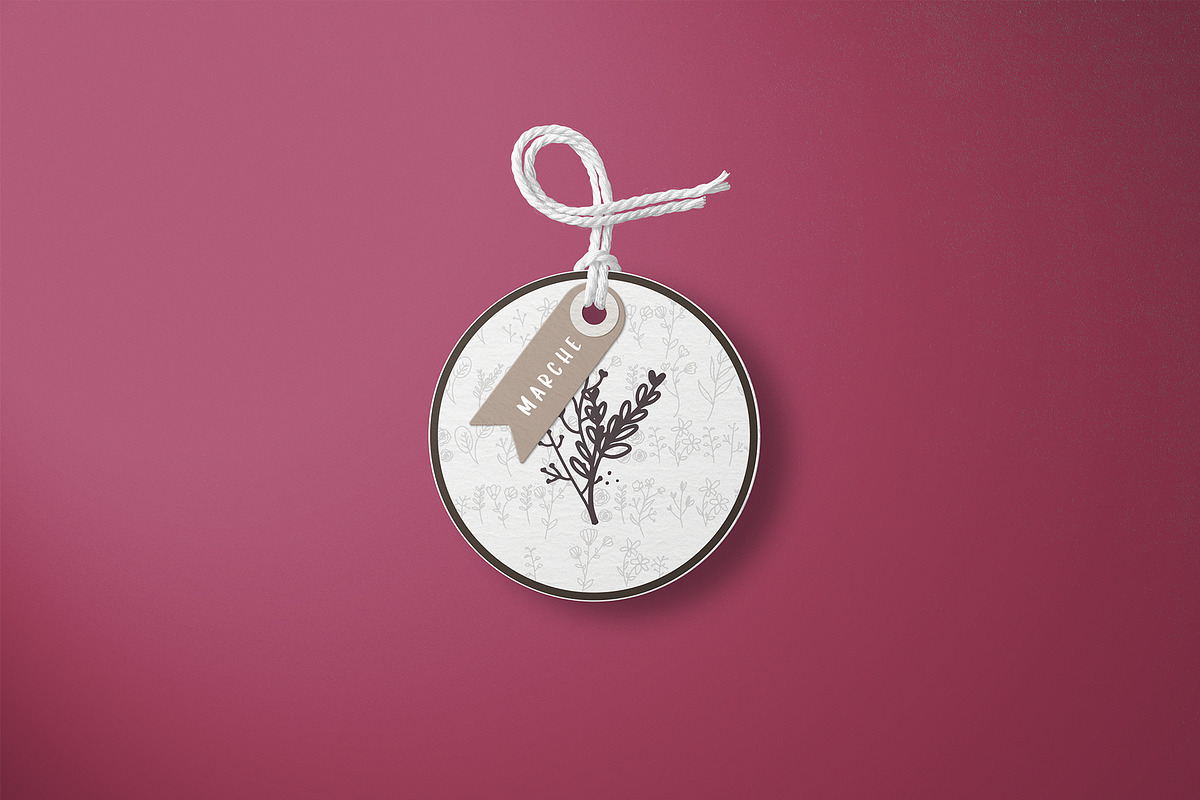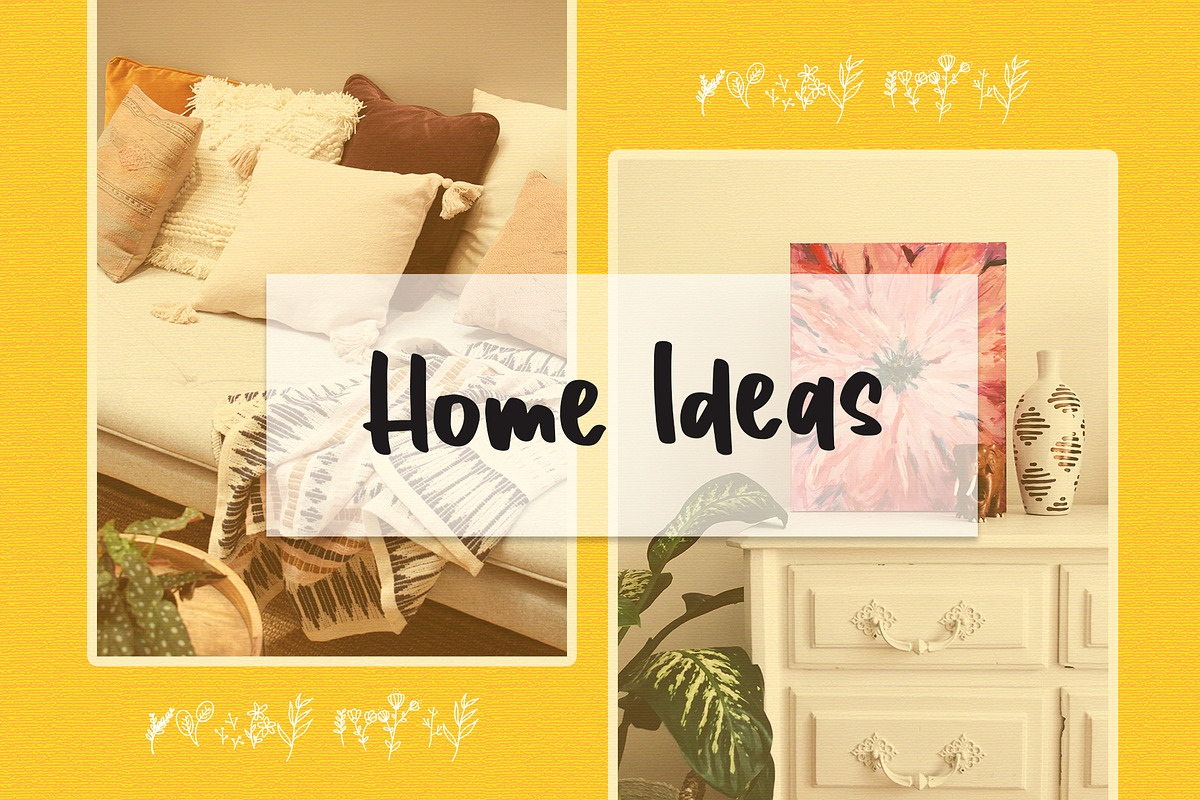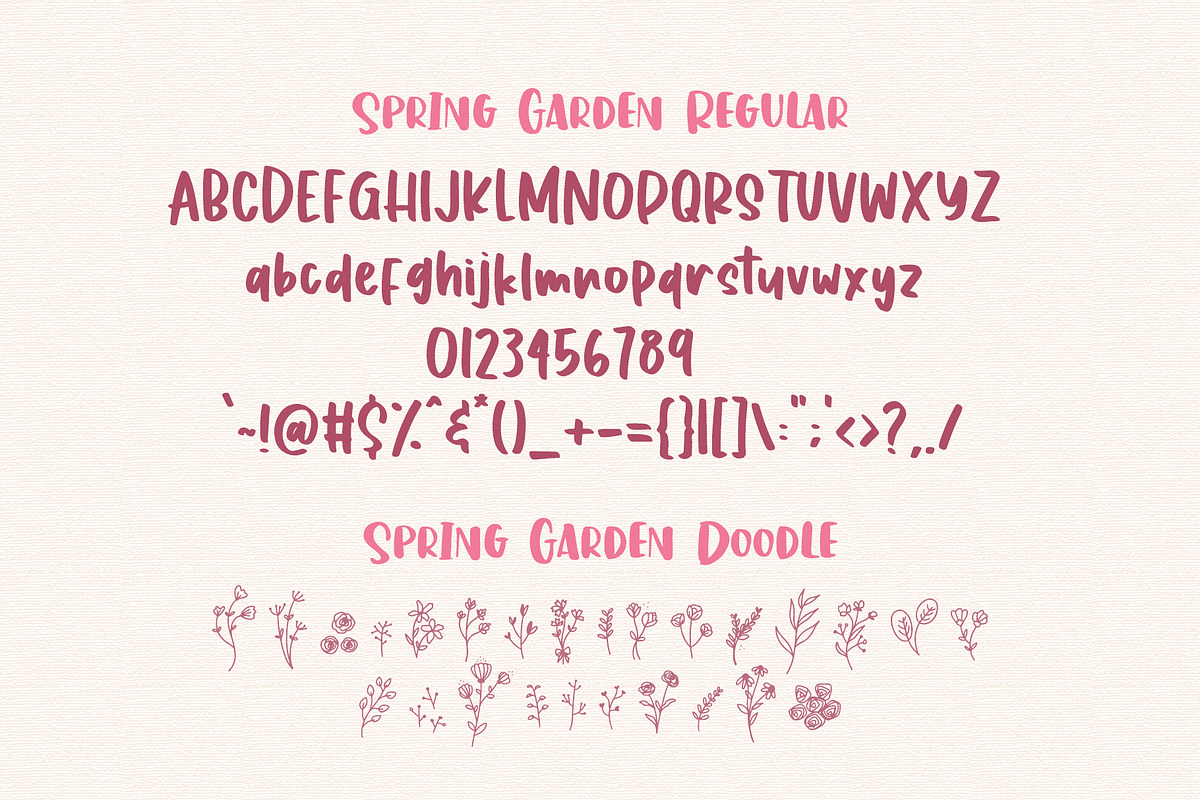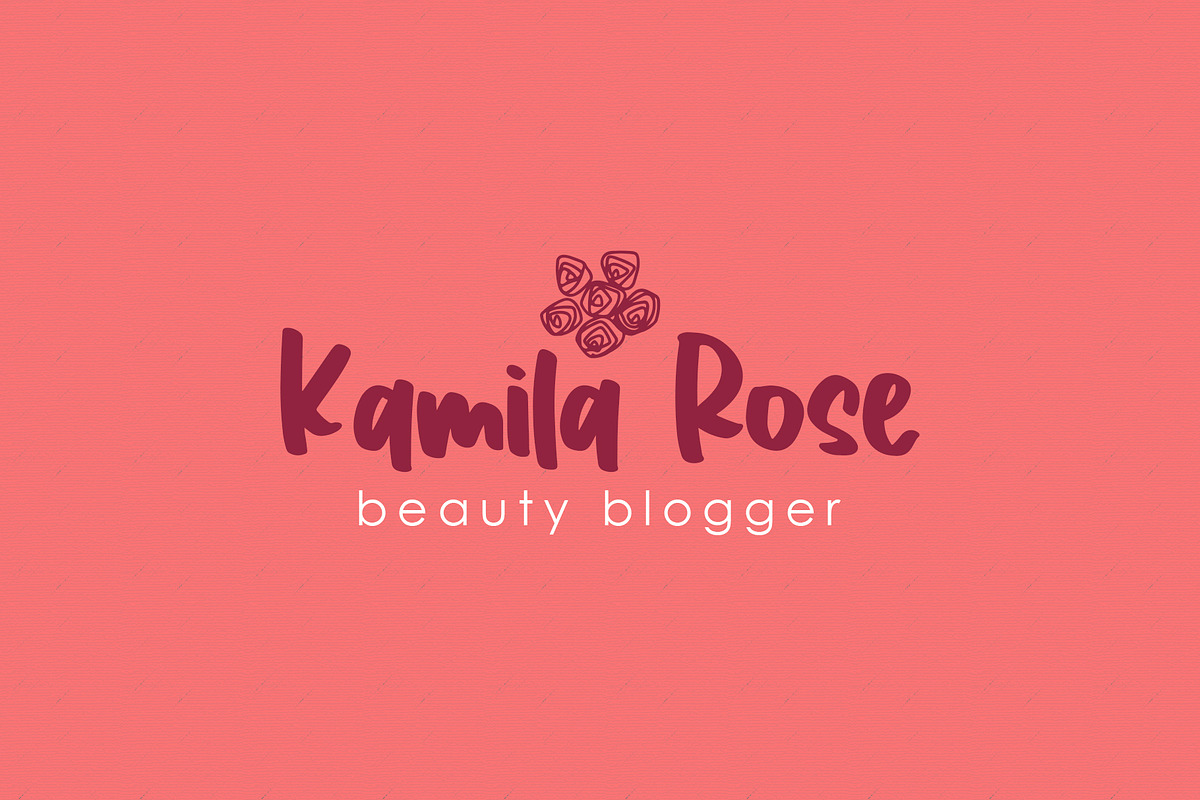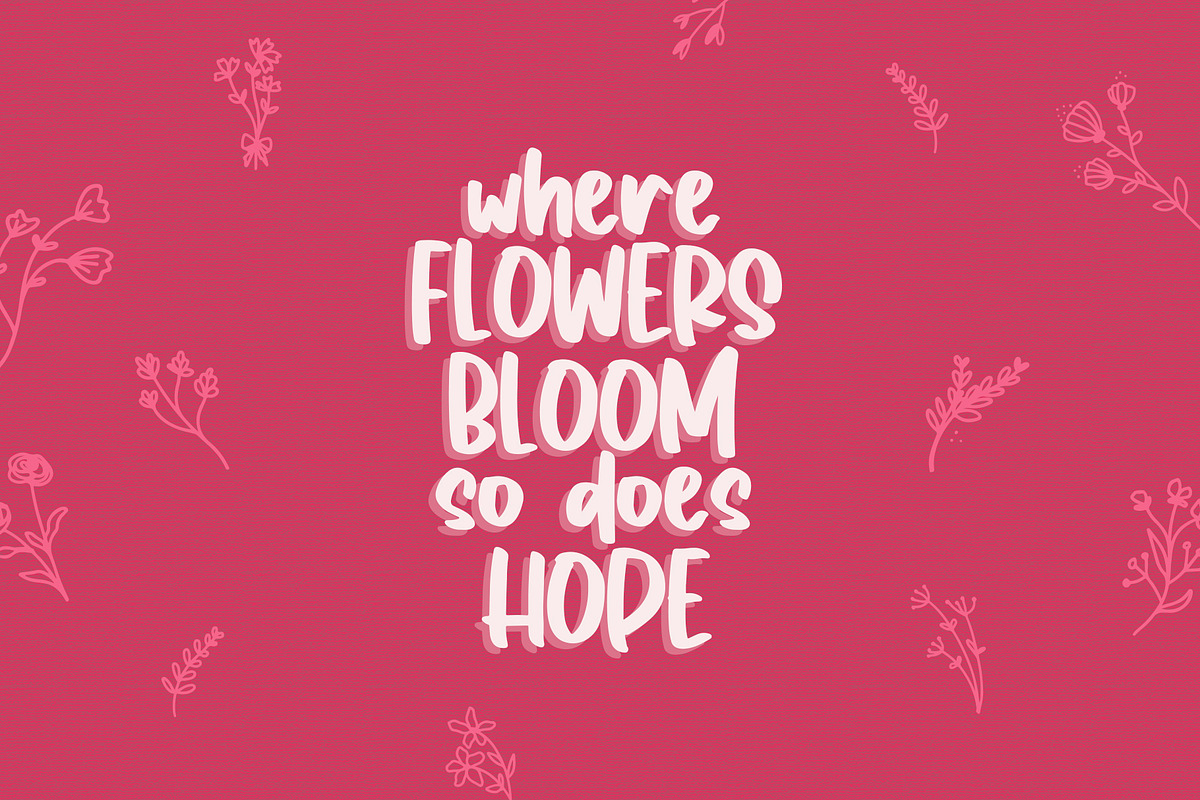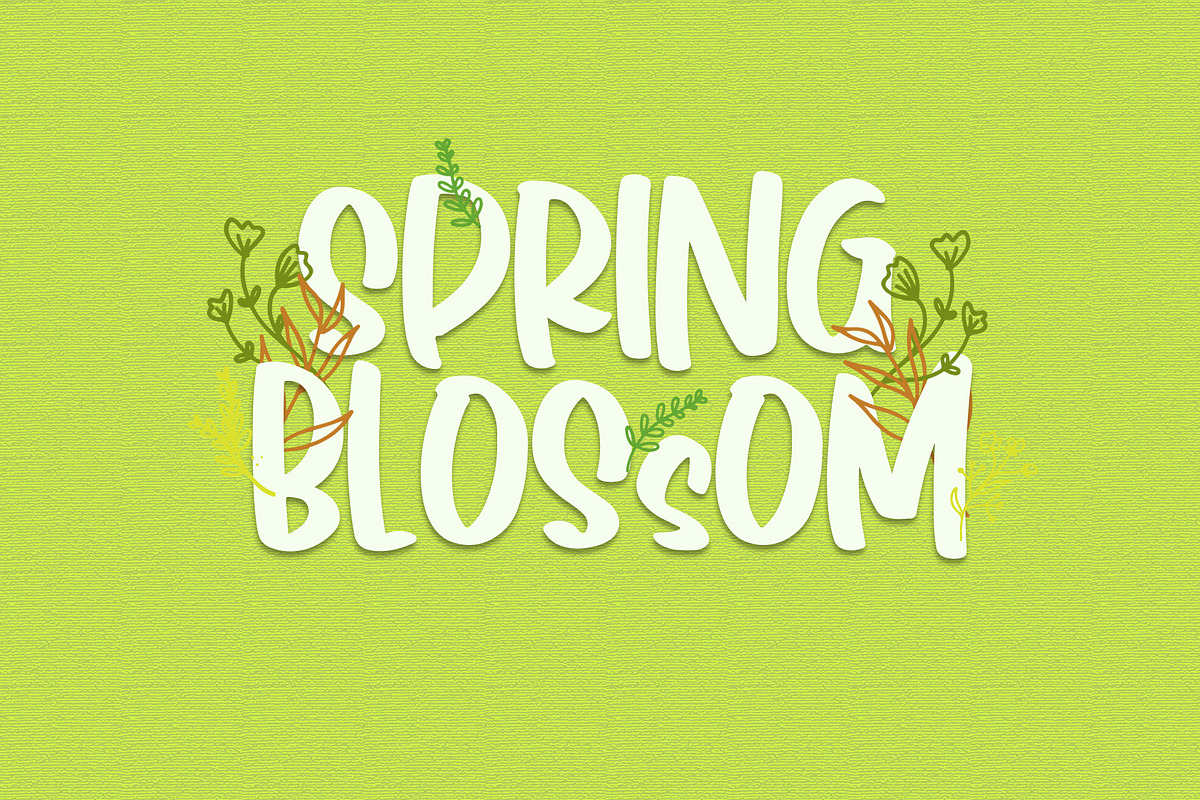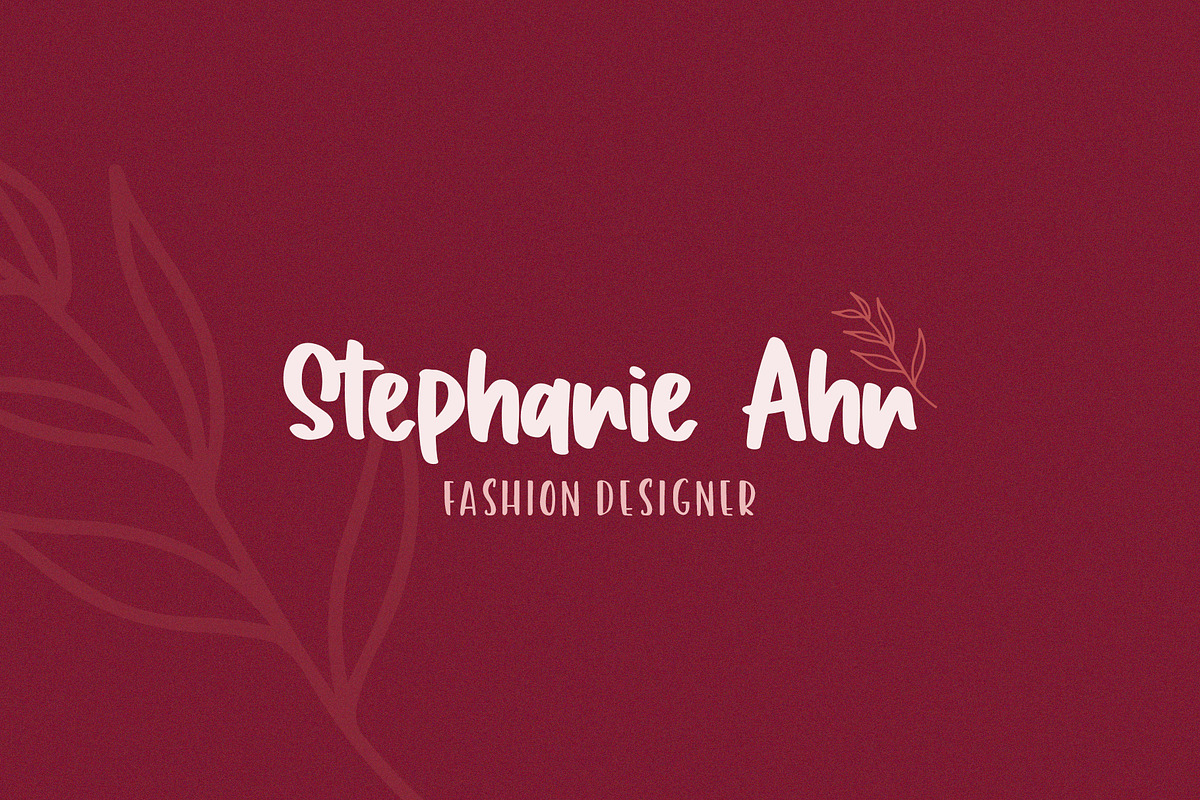
Spring Garden - Handwritten Font
Create the beautiful design with this beautiful font, Spring Garden! Including the floral doodles to make it more lovable!
BONUS Floral Doodle Font
Why Spring Garden - Handwritten Font is worth a look
Spring Garden - Handwritten Font by Dm Studio fits naturally into Branding, posters, packaging, typography.